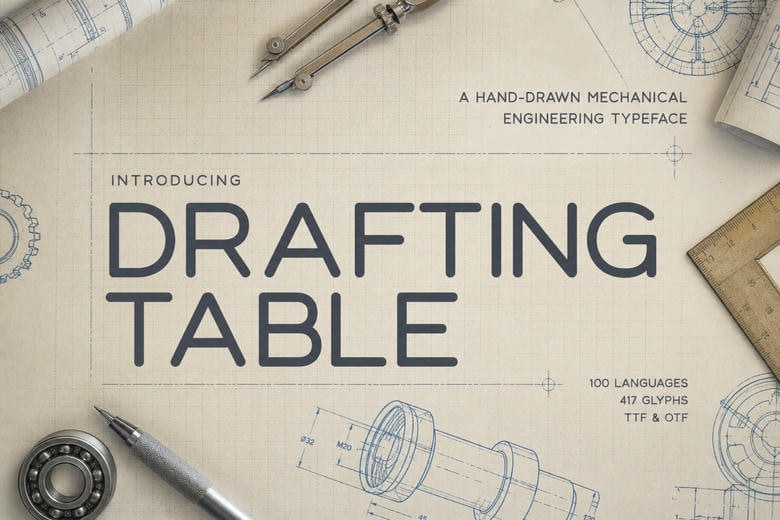
Drafting Table Font
Drafting Table is a custom typeface that combines the accuracy of technical drawings with the personality of a draftsman’s hand. Inspired by vintage blueprints, industrial diagrams, engineering notebooks, and classic mechanical manuals, it offers designers, architects, makers, builders, and other creative professionals the flexibility to work on projects around the world.
Drafting Table Sans Serif Font